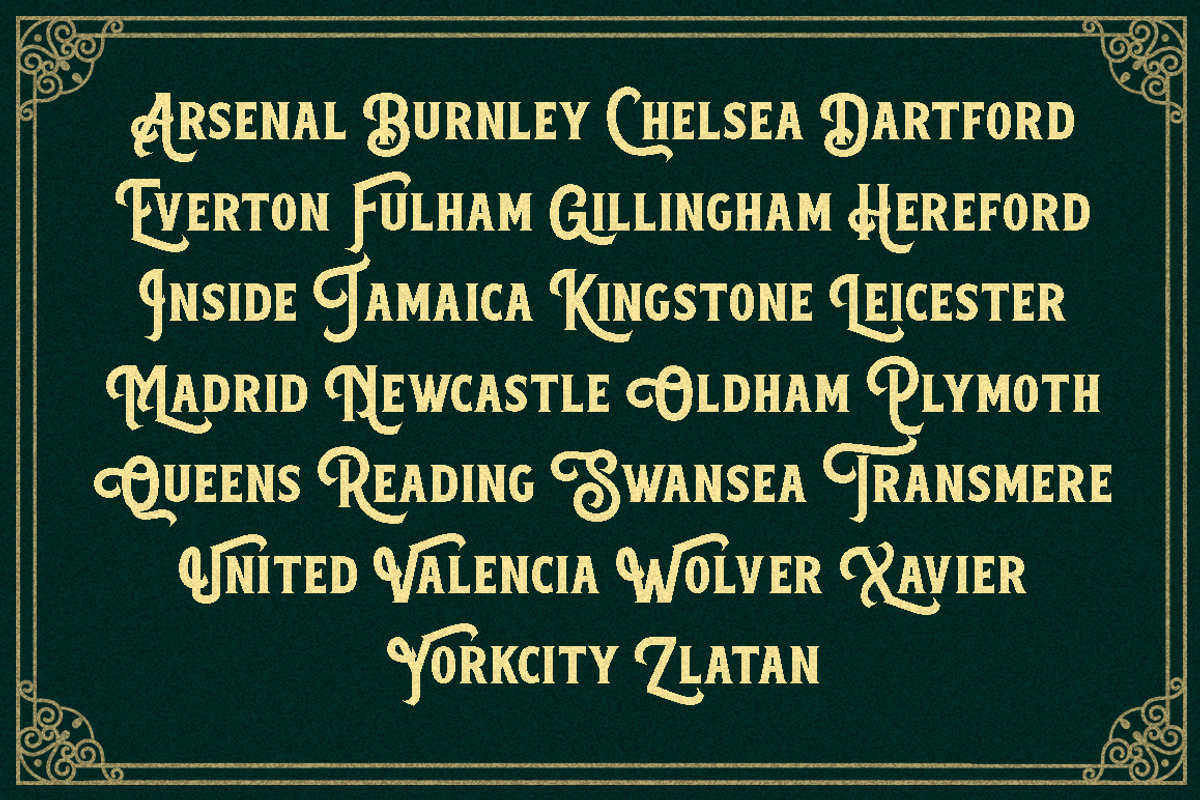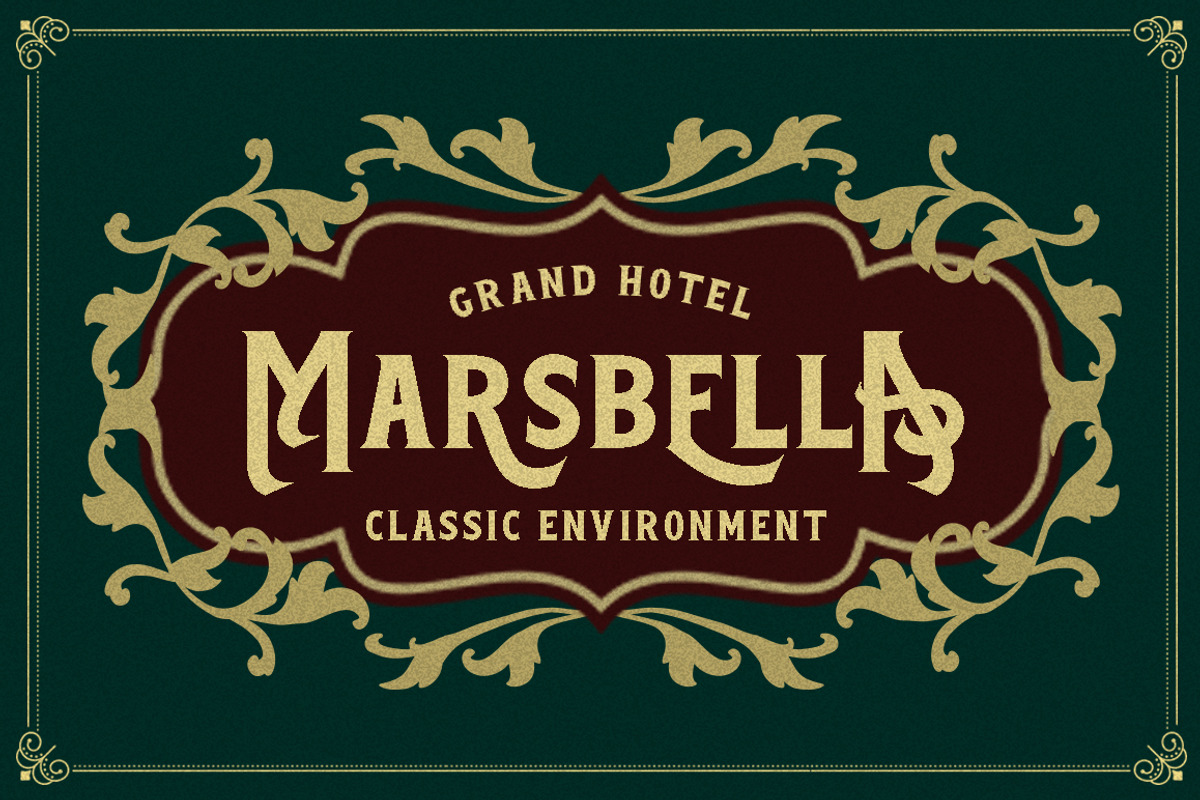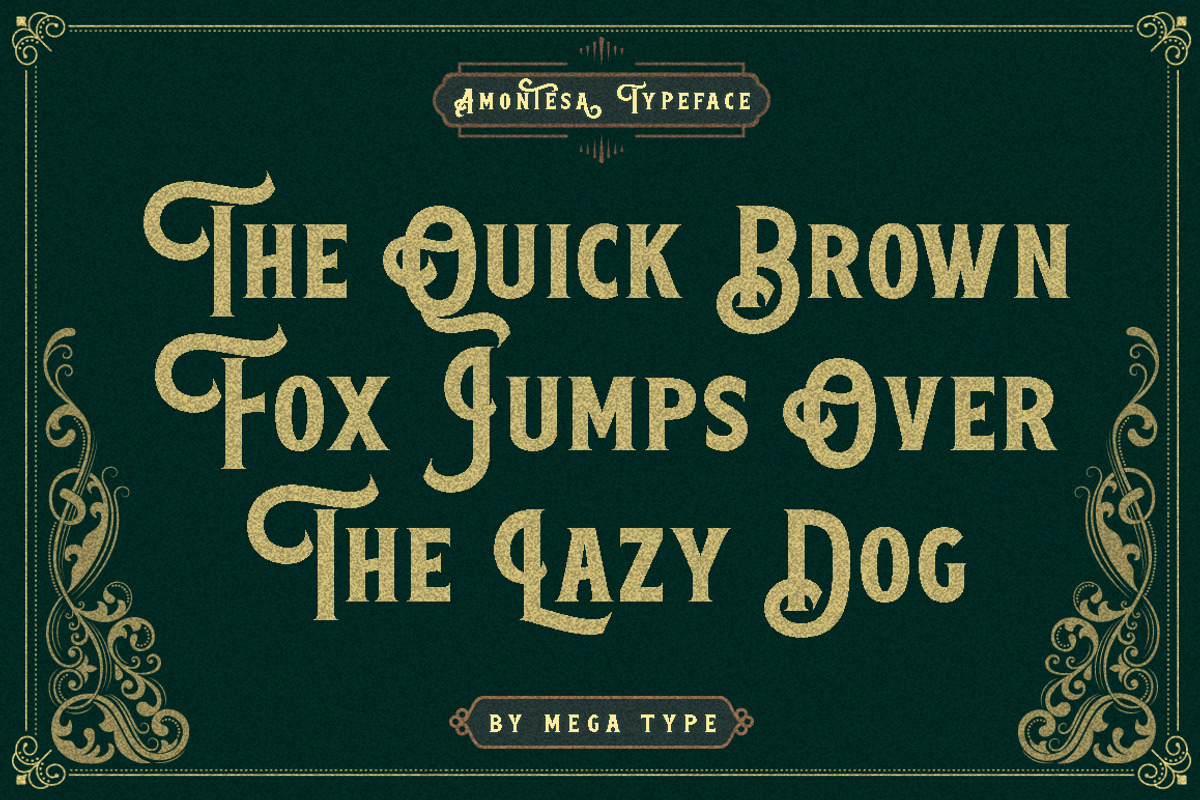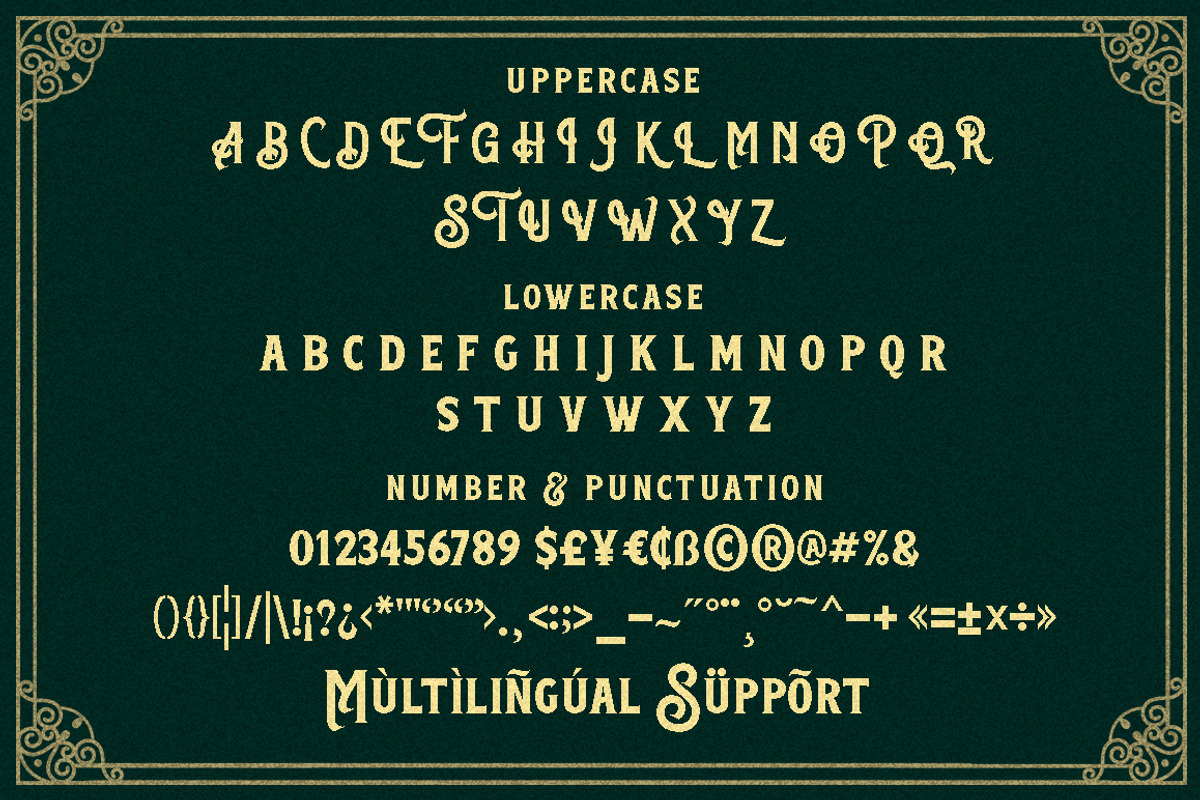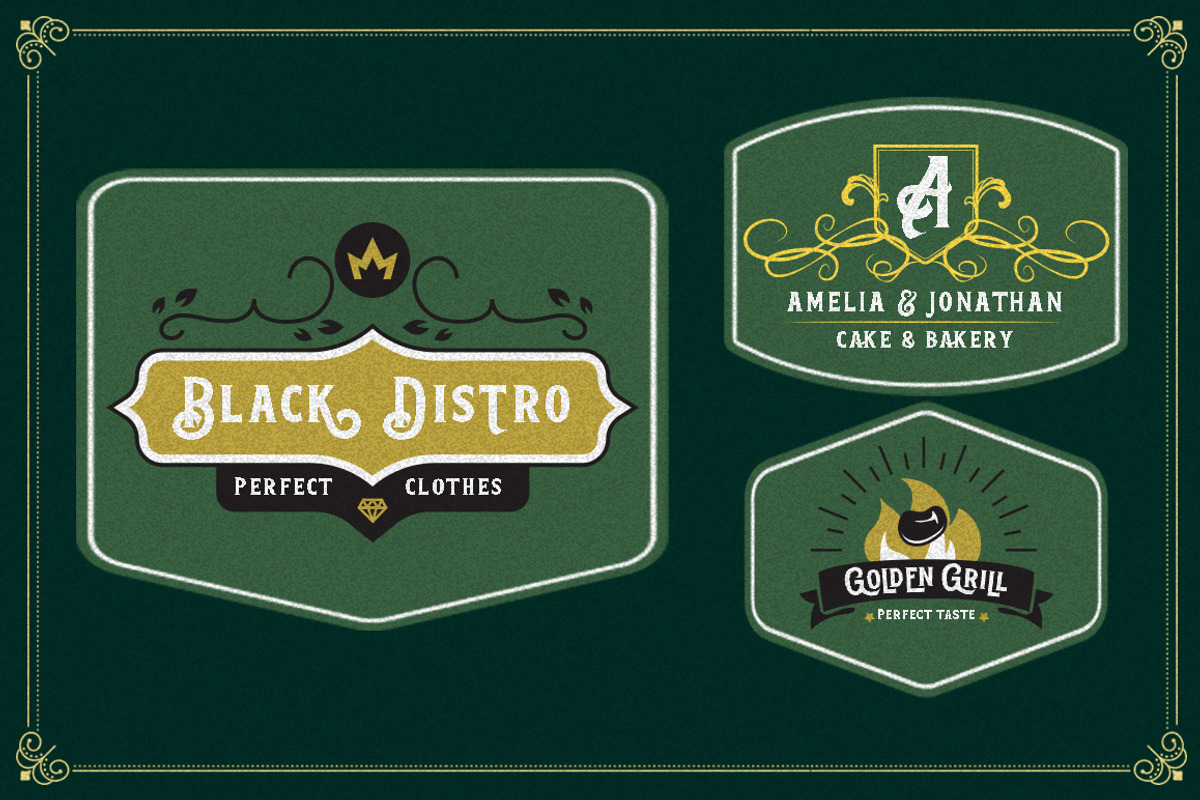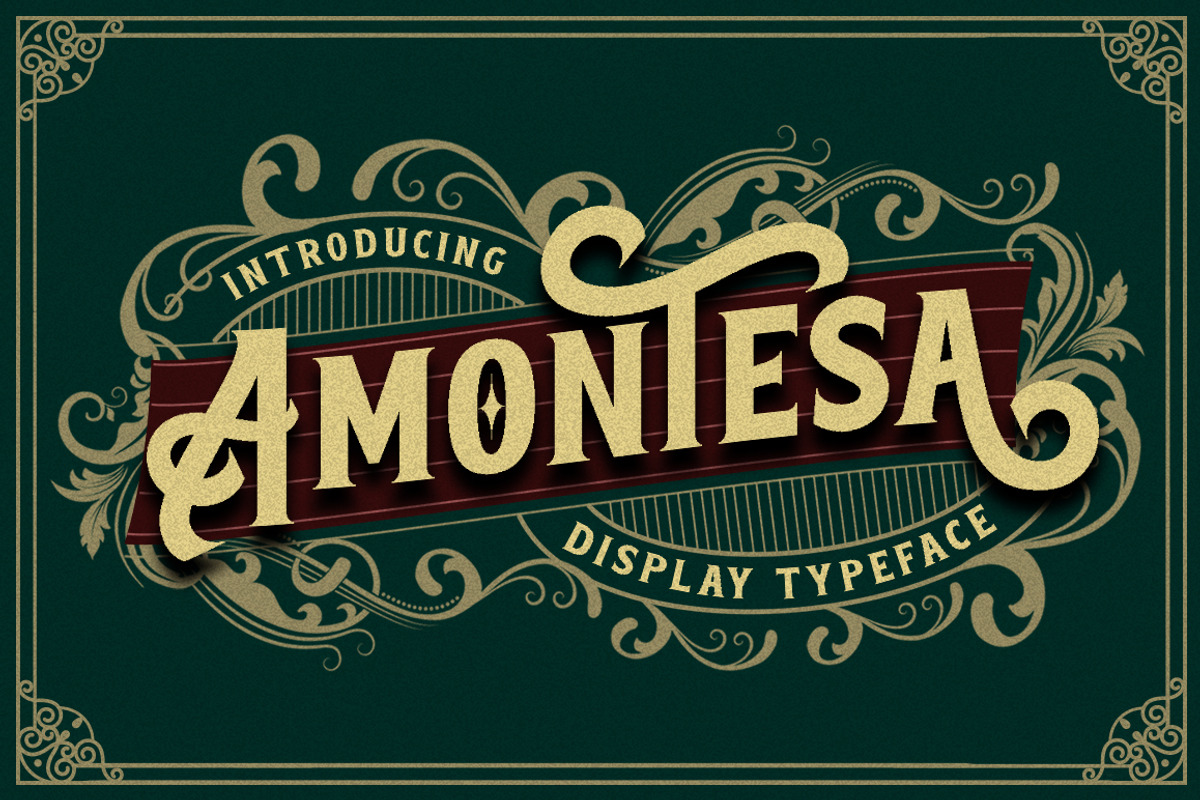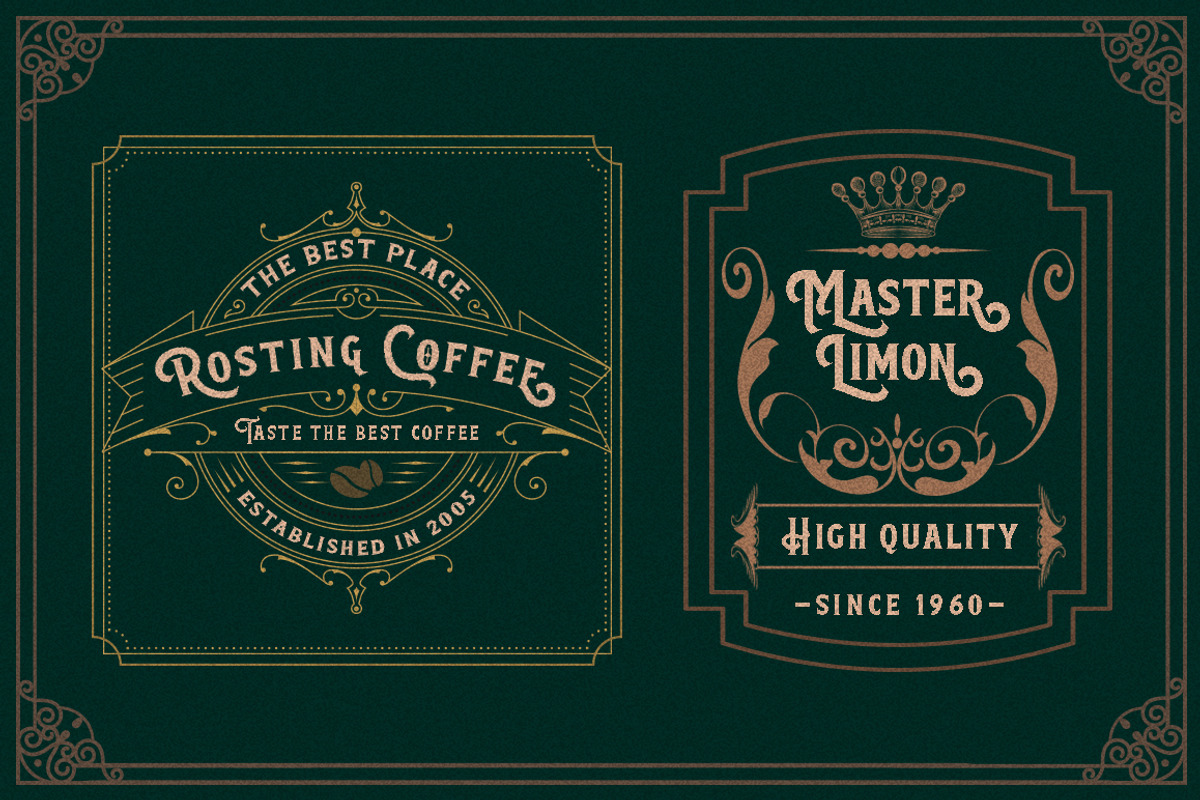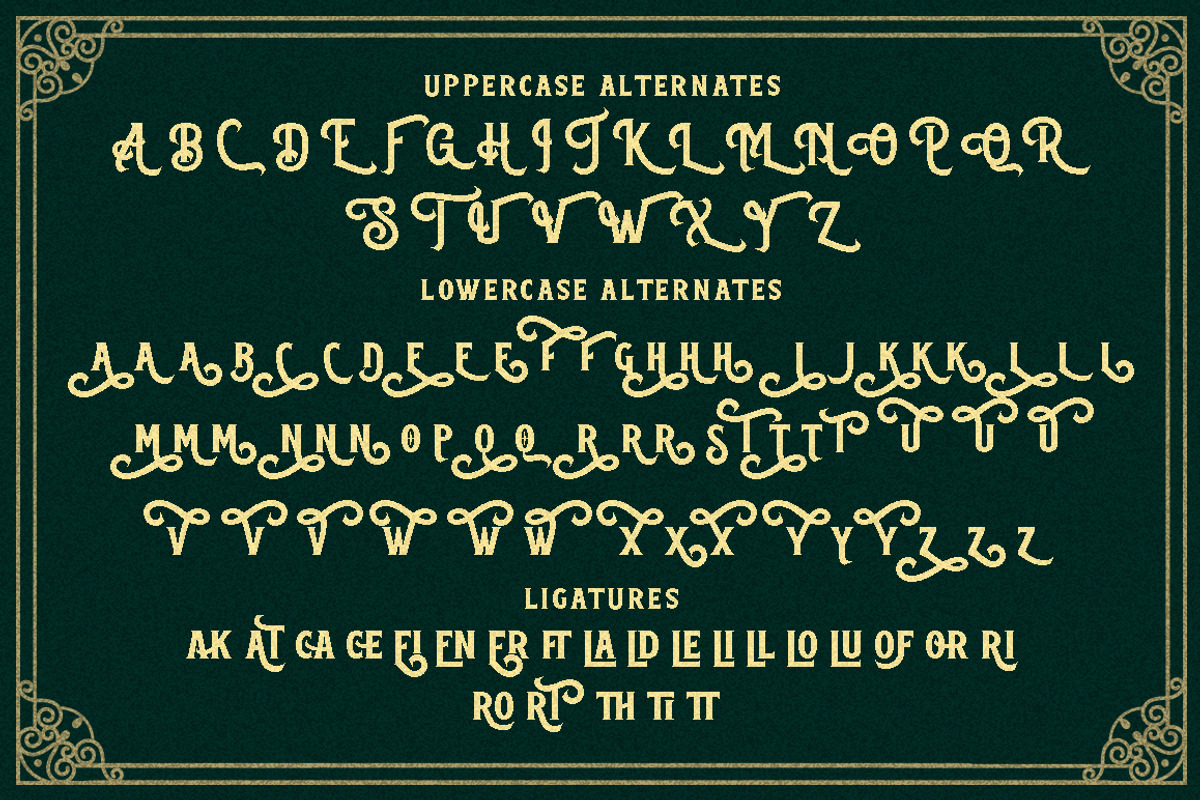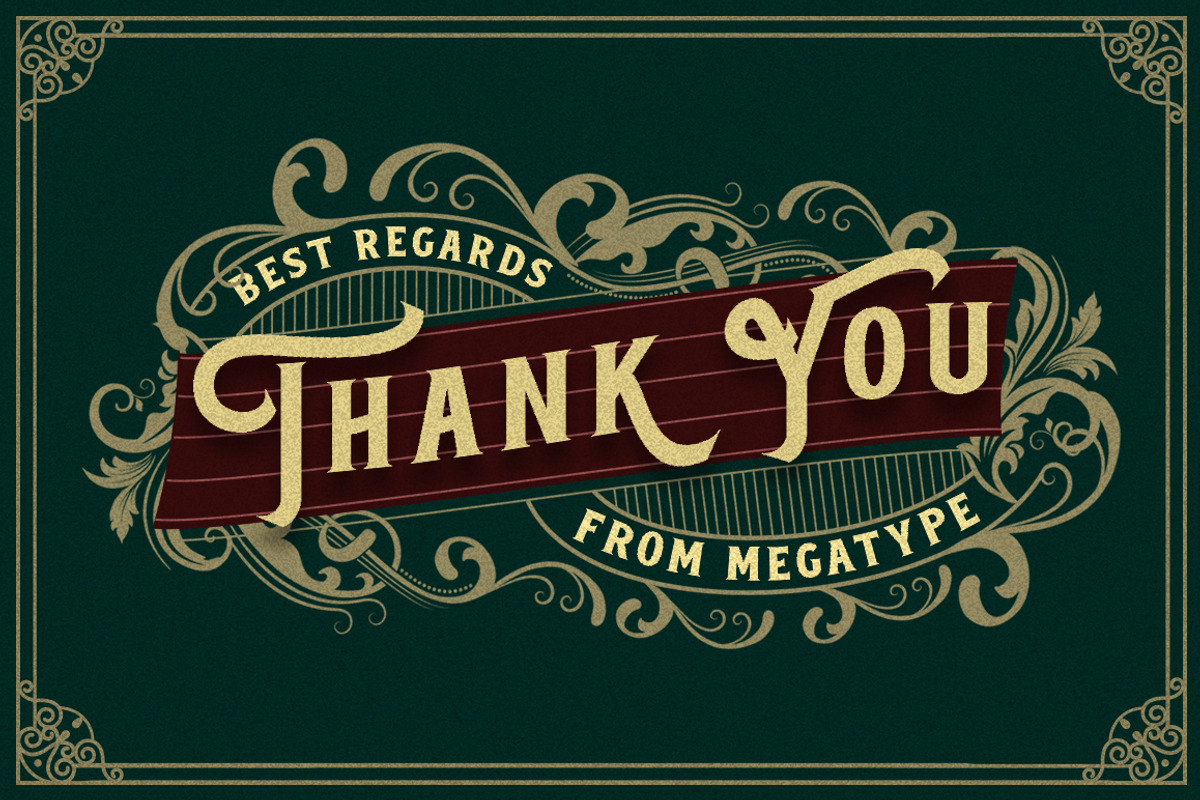
Amontesa
Amontesa is a classic typeface inspired by classical western culture. Designed with an elegant and sturdy form giving it a modern touch. It is suitable for your designs such as posters, flyers, t-shirts, logos, vintage logos, logotypes, signage, branding, magazines and others.
OpenType features several alternate characters and ligatures that allow you to mix and match letter pairs to suit your design.
Amontesa includes a complete set of upper and lowercase letters, as well as multi-language support, numbers, punctuation, ligatures and alternatives.